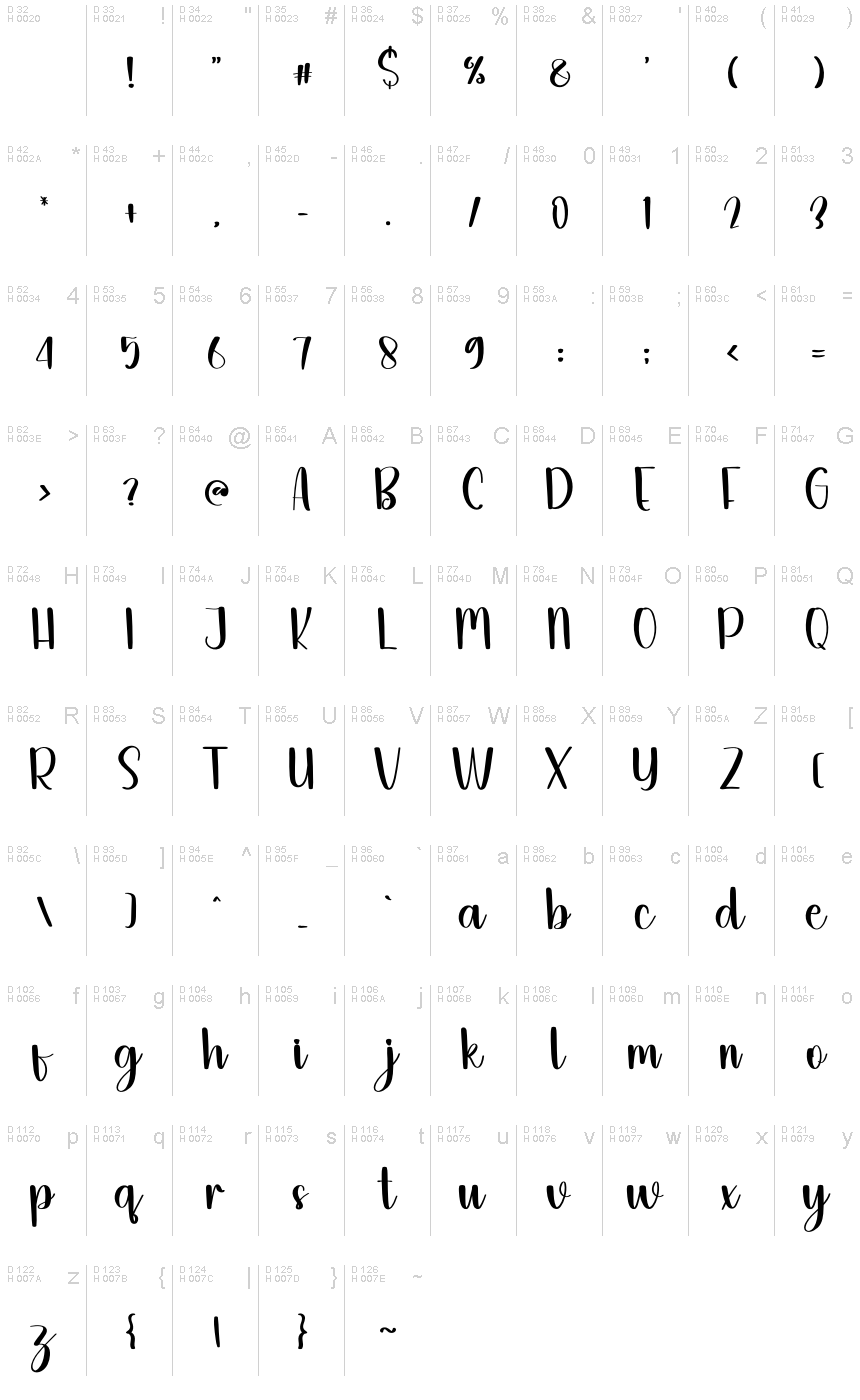
Tuesday
Tuesday, designed by Inermedia Studio, boasts an effortlessly chic handwritten style that evokes the casual elegance of a personal note. With its fluid lines and varying stroke thickness, this font adds a touch of intimacy and charm to any project. Its organic flow and relaxed vibe suggest it's perfect for invitations, greeting cards, and branding that aim to create a friendly and approachable atmosphere.
This font's aesthetic is versatile enough to embellish boutique packaging or enhance the headers on a lifestyle blog, making it an invaluable asset for designers seeking to convey authenticity with a modern twist. Tuesday's handwritten appeal ensures that your message is delivered with warmth and personality.